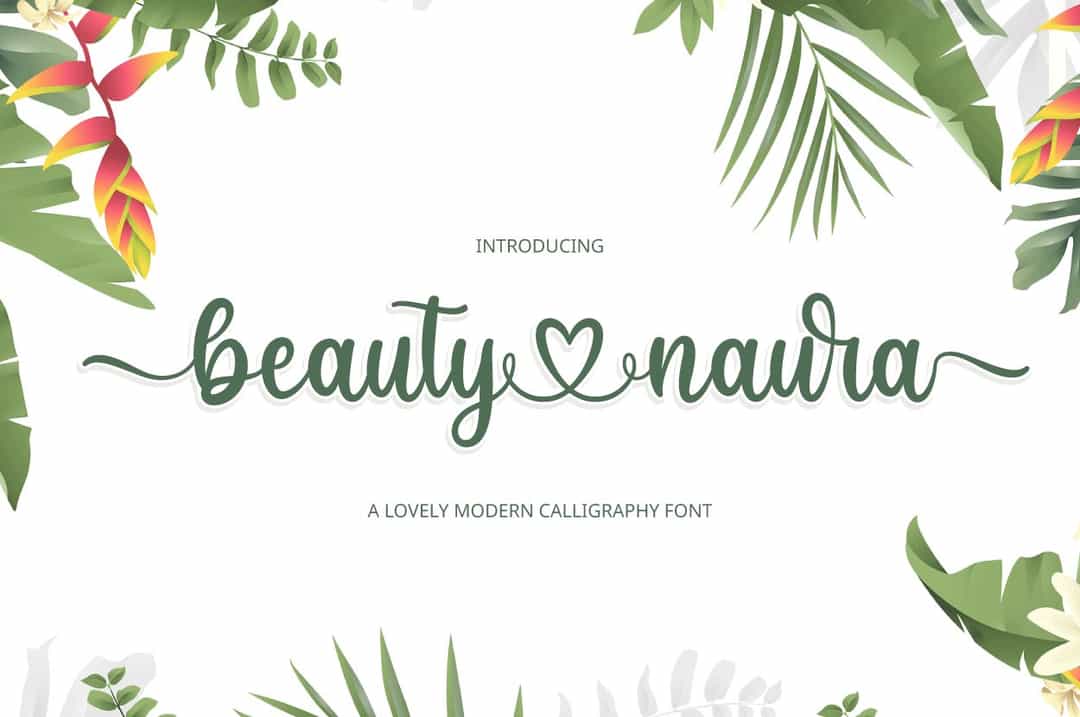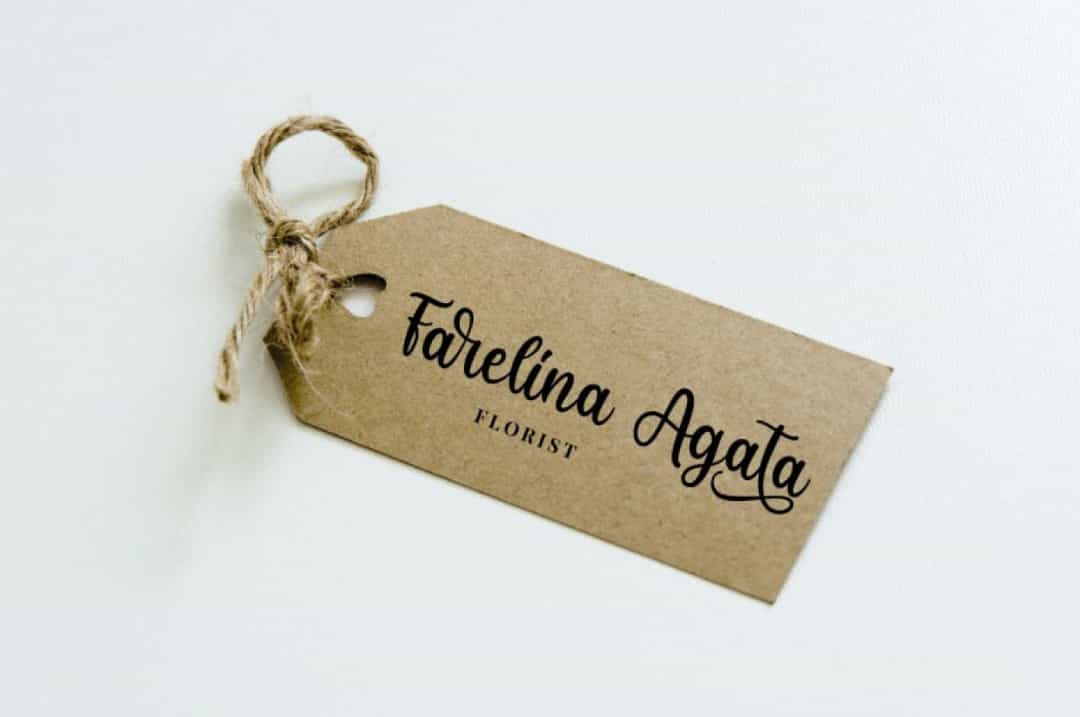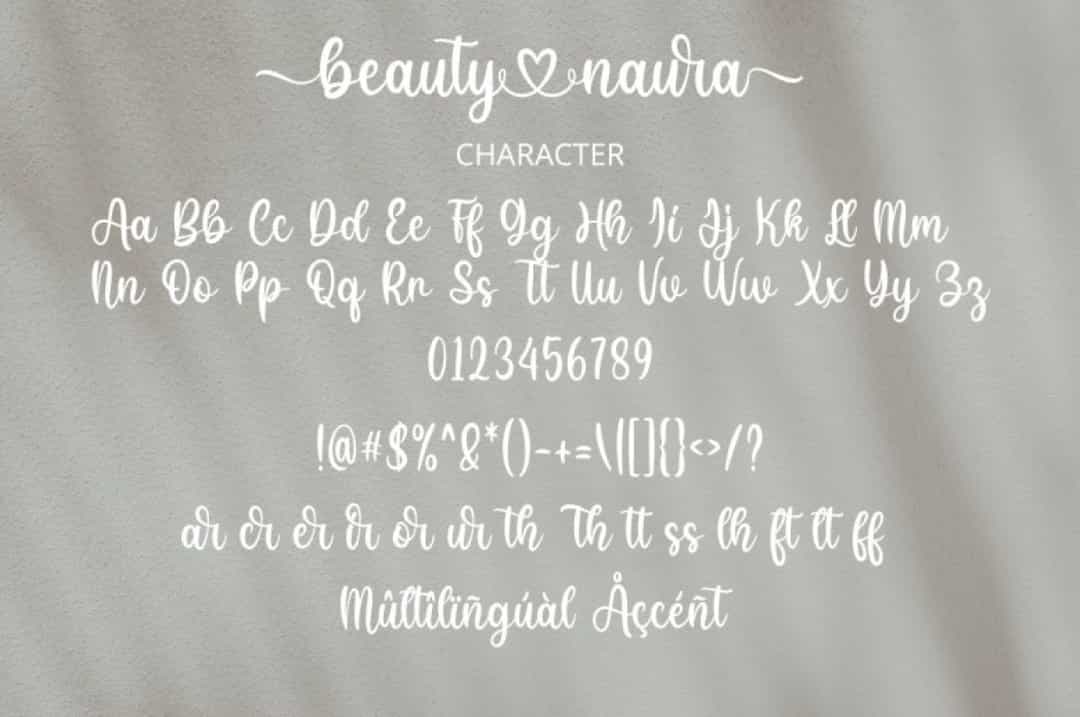
Beauty Naura Font is a contemporary calligraphy script with casual aesthetic. This font’s versatility allows it to be used across multiple applications; such as greeting cards, quotes and logos for business cards – you name it! Add it into your original concepts and watch how beautifully it stands out!